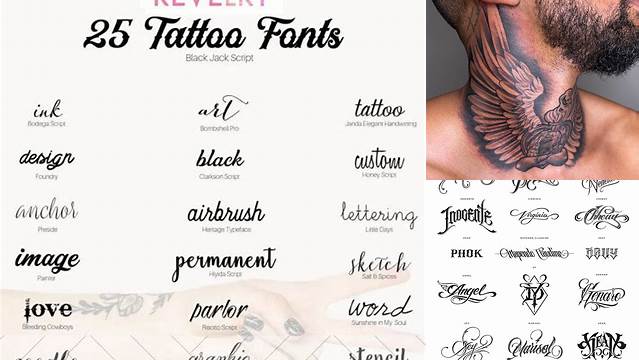
Fonts Tattoo Name: Your Ultimate Guide To Perfect Ink
Hey guys! Getting a name tattooed is a big decision, and choosing the right font is just as important as choosing the name itself. The font you select will heavily influence the overall aesthetic and vibe of your tattoo, so let's dive into everything you need to know about fonts tattoo name and how to pick the perfect one for your skin.
1. Understanding Font Styles for Name Tattoos
When thinking about fonts tattoo name, it's crucial to first get a grip on the different styles available. Each style carries its own unique feel and will affect how the name is perceived. Are you going for something classic and timeless, or modern and edgy? Let's explore some popular categories. Think about the message you want to convey. Is it elegance, strength, or something else entirely? The right font can be a powerful way to visually communicate the essence of the name and the sentiment behind it. Before diving into the specifics, take some time to truly reflect on the meaning you want your tattoo to hold. Considering the overall aesthetic you're aiming for will help you narrow down the vast sea of font possibilities and land on something truly special and meaningful for your personal story. Think of your skin as a canvas, and the font as the brushstroke that brings your vision to life. So, let's get started on this exciting journey of exploration!
2. Cursive Fonts for Name Tattoos
Cursive fonts are a super popular choice when it comes to fonts tattoo name because they offer a flowing, elegant look. Think about how handwritten script has a personal touch – that's the kind of vibe cursive can give your tattoo. They're often associated with femininity and grace, but honestly, a well-chosen cursive font can look amazing on anyone. Imagine a delicate cursive font adorning a wrist or collarbone, adding a touch of understated beauty. Or perhaps a bolder, more dramatic cursive sprawling across the back, making a statement. The beauty of cursive lies in its versatility. However, there are a few things to keep in mind. Intricate cursive fonts with lots of swirls and embellishments can sometimes get a bit muddy or illegible, especially if the tattoo is small or placed in an area where the skin stretches a lot. It's crucial to work with a skilled tattoo artist who can execute the design flawlessly. They can help you choose a cursive font that will not only look beautiful but also stand the test of time, maintaining its clarity and elegance for years to come. So, explore the world of cursive, and let its graceful curves and flowing lines inspire your perfect name tattoo.
3. Gothic Fonts for Name Tattoos
For a bolder, more dramatic statement, Gothic fonts tattoo name are the way to go. These fonts have a serious edge and often evoke a sense of mystery or strength. If you're looking to make a statement, a Gothic font can be incredibly powerful. Think of the strong, angular lines and the way these fonts command attention. They're not for the faint of heart, but when done right, a Gothic name tattoo can be absolutely stunning. Imagine a name rendered in a bold Gothic script across the chest or back, a powerful declaration of identity. Or perhaps a smaller Gothic font on the forearm, a subtle nod to a more rebellious spirit. The beauty of Gothic fonts lies in their ability to convey a sense of strength and permanence. However, it's essential to choose the right Gothic font for your design. Some Gothic fonts can be quite intricate, so it's crucial to ensure the design remains legible, especially for smaller tattoos. Work closely with your tattoo artist to select a font that not only fits your aesthetic but also translates well onto the skin. Consider the spacing between the letters and the overall size of the tattoo to ensure the design remains clear and impactful for years to come.
4. Block Letter Fonts for Name Tattoos
Block letter fonts tattoo name offer a clean, modern aesthetic. They're straightforward, easy to read, and can be a great choice if you want something simple and impactful. Think about the strength and clarity of block letters – they make a statement without being overly fussy. This style is particularly well-suited for those who appreciate minimalism and a no-nonsense approach. Imagine a name rendered in bold block letters across the chest, a powerful declaration of self. Or perhaps a smaller, more delicate block letter font on the wrist, a subtle yet impactful reminder. The beauty of block letter fonts lies in their versatility. They can be adapted to suit a wide range of styles and personalities. Whether you prefer a classic, sans-serif block letter or a more stylized, modern interpretation, there's a block letter font out there for you. However, it's essential to consider the placement of your tattoo when choosing a block letter font. The clean lines and sharp angles of block letters can sometimes look harsh if not properly placed. Work with your tattoo artist to find the perfect placement and size for your tattoo to ensure it complements your body and looks its best for years to come.
5. Script Fonts for Name Tattoos
Script fonts tattoo name are similar to cursive, but they often have a more playful or whimsical feel. Think of the flowing lines and elegant curves of calligraphy – that's the essence of script fonts. They can add a touch of personality and flair to your tattoo, making it truly unique. Imagine a name rendered in a delicate script font, swirling gracefully across the skin. Or perhaps a bolder script font, making a statement with its unique curves and flourishes. The beauty of script fonts lies in their ability to express individuality and creativity. However, it's essential to choose a script font that is both beautiful and legible. Some script fonts can be quite intricate, so it's crucial to ensure the design remains clear and easy to read, especially for smaller tattoos. Work closely with your tattoo artist to select a font that not only reflects your personality but also translates well onto the skin. Consider the spacing between the letters and the overall size of the tattoo to ensure the design remains clear and impactful for years to come. With the right script font, your name tattoo can become a true work of art, a unique expression of your individuality.
6. Choosing the Right Font Size for Your Name Tattoo
Size matters, guys! When it comes to fonts tattoo name, the size of the font is super important for both aesthetics and readability. A tiny, intricate font might look cute on paper, but it could turn into a blurry mess on your skin over time. On the flip side, a huge, bold font might overwhelm the area you're tattooing. Think about the placement of your tattoo and the amount of space you have to work with. A small, delicate font might be perfect for a wrist tattoo, while a larger font would be better suited for a back piece. It's also crucial to consider the long-term visibility of your tattoo. As your skin ages, the ink can spread slightly, blurring the lines of your tattoo. Choosing a font size that is large enough to remain legible over time is essential. Your tattoo artist can offer valuable guidance on this, helping you select a font size that will look great now and for years to come. Remember, a well-chosen font size is the key to a beautiful and enduring name tattoo.
7. Considering Tattoo Placement with Font Choice
Where you put your tattoo can totally influence the best fonts tattoo name to use. Think about it – a delicate cursive font might look amazing on your wrist, but it might get lost on a broader area like your back. A bold, Gothic font could be striking on your chest, but maybe a bit too intense for your finger. The shape and contours of your body play a big role in how a tattoo looks. A font that flows well with the curves of your body will look much more natural and aesthetically pleasing. Certain areas of the body, like the ribs or spine, can be more sensitive to tattooing, so you might want to opt for a simpler font that requires less time under the needle. Your tattoo artist can be a great resource for advice on placement. They have the experience to guide you toward the best font choices for specific areas of the body, ensuring your tattoo looks balanced and beautiful.
8. Font Legibility and Name Tattoos
Okay, so this is a big one: legibility. Your fonts tattoo name needs to be readable, right? There's no point in getting a tattoo if people can't actually make out what it says! Super fancy, intricate fonts might look cool, but if the letters all blend together, it defeats the purpose. Think about the spacing between the letters. Are they close enough together that they look cohesive, but far enough apart that they don't run into each other? The thickness of the lines also matters. Thin, delicate lines can fade over time, making the tattoo harder to read. Bold, clear lines will stand the test of time much better. Before you commit to a font, ask your tattoo artist to do a test print. This will give you a better idea of how the font will look on your skin, ensuring it remains legible for years to come. After all, your name tattoo is a statement, and you want to make sure it's heard loud and clear!
9. Matching Font to Your Personal Style
Your fonts tattoo name should be a reflection of you. What's your personal style like? Are you classic and elegant? Edgy and bold? Playful and whimsical? Your tattoo font should match your vibe. If you're someone who loves classic looks, a traditional font like Times New Roman or Garamond might be a great choice. If you're more into a modern aesthetic, a sans-serif font like Helvetica or Arial could be perfect. And if you're feeling a little more adventurous, you could explore script fonts or even hand-lettered styles. Think about the other tattoos you have (or might get in the future). Do you want your name tattoo to complement your existing ink, or do you want it to stand out on its own? The key is to choose a font that you genuinely love and that you feel represents who you are. After all, your tattoo is a permanent expression of yourself, so you want to make sure it's authentic.
10. Popular Fonts for Name Tattoos: A Showcase
Let's take a look at some seriously popular fonts tattoo name choices! This can give you some solid inspiration and help you narrow down your options. Cursive fonts are always a hit for their elegance and flow. Think about fonts like Brush Script or Pacifico – they've got that classic, handwritten feel. Gothic fonts are a go-to for a bolder statement. Options like Old English or Blackletter give off a strong, dramatic vibe. If you're after something clean and modern, sans-serif fonts like Helvetica or Futura are fantastic choices. They're simple, readable, and super versatile. Script fonts can add a touch of whimsy and personality. Check out fonts like Lobster or Great Vibes for some fun, flowing options. Don't forget about serif fonts like Times New Roman or Georgia. They're classic and timeless, perfect for a traditional look. This is just a starting point, though! There are thousands of fonts out there, so don't be afraid to explore and find something truly unique that speaks to you.
11. The Timeless Appeal of Traditional Tattoo Fonts
There's a reason why some fonts tattoo name have been around for ages – they're classics for a reason! Traditional tattoo fonts have a timeless appeal that just never goes out of style. Think about the bold lines, the clean shapes, and the overall simplicity. These fonts are designed to stand the test of time, both in terms of aesthetics and legibility. Fonts like Old English and Gothic have a rich history in tattooing, evoking a sense of tradition and heritage. They're often associated with strength, resilience, and a connection to the past. Traditional fonts are also incredibly versatile. They can be adapted to suit a wide range of styles and placements, making them a reliable choice for any tattoo design. If you're looking for a font that will look just as good in 20 years as it does today, a traditional tattoo font is definitely worth considering. It's a safe bet for a reason, and you'll love its enduring style for a lifetime.
12. Modern and Minimalist Font Choices
If you're all about clean lines and a less-is-more aesthetic, modern and minimalist fonts tattoo name are your jam. These fonts ditch the frills and focus on simplicity, legibility, and a contemporary vibe. Think about sans-serif fonts like Helvetica, Arial, or Futura. They're sleek, straightforward, and incredibly versatile. A minimalist font can be a great choice if you want your name tattoo to be understated yet impactful. It's a style that works well in a variety of placements, from the wrist to the collarbone to the ankle. Modern fonts also have a timeless quality, making them a solid investment for the long haul. They don't follow fleeting trends, so you can be sure your tattoo will look stylish for years to come. If you're drawn to clean design and a minimalist aesthetic, explore the world of modern fonts – you might just find the perfect fit for your name tattoo.
13. Calligraphy-Inspired Name Tattoo Fonts
Want to add a touch of elegance and artistry to your fonts tattoo name? Calligraphy-inspired fonts are the way to go! These fonts mimic the beauty and flow of traditional calligraphy, creating a tattoo that's both personal and visually stunning. Think about the delicate strokes, the graceful curves, and the overall sense of artistry. Calligraphy fonts can range from classic and formal to more modern and whimsical, giving you plenty of options to choose from. Imagine a name tattooed in a flowing script across your back, or a delicate calligraphy font adorning your wrist. It's a style that exudes sophistication and personality. When choosing a calligraphy font, it's important to consider legibility. Some ornate calligraphy fonts can be difficult to read, so opt for a style that strikes a balance between beauty and clarity. A well-chosen calligraphy font can transform your name tattoo into a true work of art, a lasting expression of your unique style.
14. Hand-Lettered and Unique Font Styles
If you're after a fonts tattoo name that's truly one-of-a-kind, consider hand-lettered or unique font styles. These options offer a personal touch that you just can't get with a standard font. Think about the charm of a font that's been custom-designed just for you. A hand-lettered tattoo can capture your personality and style in a way that no other font can. You could work with your tattoo artist to create a font that's based on your own handwriting, or you could explore unique fonts that you won't find anywhere else. The possibilities are endless! A unique font style can make your name tattoo stand out from the crowd, making it a true statement piece. However, it's essential to choose a hand-lettered or unique font that's also legible. Make sure the letters are clear and well-defined, so your tattoo remains readable over time. With a little creativity and collaboration, you can create a name tattoo that's as unique as you are.
15. Font Pairings: Combining Different Styles
Feeling adventurous? You can totally level up your fonts tattoo name by combining different font styles! Font pairings can create a visually interesting and dynamic tattoo. Think about pairing a bold, block letter font with a delicate script font, or a classic serif font with a modern sans-serif font. The key is to find fonts that complement each other and create a harmonious balance. When choosing font pairings, consider the overall message you want to convey. Do you want a tattoo that's both strong and elegant? Or perhaps something that's both classic and modern? The right font pairing can help you achieve your desired aesthetic. It's also important to consider legibility when combining fonts. Make sure both fonts are clear and readable, even when placed next to each other. Experiment with different font combinations and ask your tattoo artist for their advice. They can help you create a font pairing that's both visually appealing and timeless.
16. The Impact of Line Weight in Font Choice
The line weight of your fonts tattoo name makes a huge difference in the overall look and feel. Think about it – thin lines create a delicate and understated effect, while thick lines make a bolder statement. The line weight you choose can significantly impact the legibility and longevity of your tattoo. Thin lines can fade or blur over time, so they're best suited for smaller tattoos or areas of the body where there's less friction. Thick lines, on the other hand, are more durable and will hold up better over time. They're a great choice for larger tattoos or areas that are prone to rubbing or stretching. Consider the placement of your tattoo when choosing a line weight. A thin, delicate line weight might look elegant on your wrist, but it could get lost on a broader area like your back. A thicker line weight will stand out more and make a bolder statement. Talk to your tattoo artist about the best line weight for your chosen font and placement. They can help you make a decision that will ensure your tattoo looks its best for years to come.
17. Negative Space and Font Design
Don't underestimate the power of negative space in fonts tattoo name! Negative space refers to the empty areas around and within the letters. It plays a crucial role in the legibility and overall aesthetic of your tattoo. Think about how negative space helps to define the shape of the letters and create a sense of balance. Too little negative space can make a tattoo look cluttered and difficult to read, while too much negative space can make it look sparse and disconnected. The right amount of negative space will enhance the clarity and impact of your name tattoo. Consider the complexity of your chosen font when thinking about negative space. Intricate fonts with lots of swirls and embellishments require more negative space to prevent the tattoo from looking too busy. Simpler fonts can often handle less negative space without losing legibility. Work with your tattoo artist to ensure there's enough negative space in your design. They can help you create a tattoo that's both beautiful and easy to read, making the most of this often-overlooked design element.
18. The Use of Serifs and Sans-Serifs
Serifs and sans-serifs are two main categories of fonts tattoo name, and understanding the difference can help you choose the perfect style for your ink. Serifs are the small decorative strokes that finish off the ends of letters, while sans-serifs are fonts without these strokes. Think about the classic look of serif fonts like Times New Roman or Georgia. They've got a traditional and elegant feel, often associated with books and formal documents. Sans-serif fonts, like Helvetica or Arial, have a cleaner, more modern aesthetic. They're simple, straightforward, and often used in digital design. When choosing between serifs and sans-serifs for your name tattoo, consider your personal style and the overall look you're going for. Serif fonts can add a touch of sophistication, while sans-serif fonts offer a more minimalist vibe. It's also important to think about legibility. Serif fonts can sometimes be more difficult to read in small sizes, so sans-serifs are often a better choice for smaller tattoos. Talk to your tattoo artist about the pros and cons of each style, and they can help you make the right decision for your name tattoo.
19. Font Kerning and Letter Spacing
Kerning and letter spacing might sound like technical jargon, but they're super important when it comes to fonts tattoo name! Kerning refers to the space between individual letters, while letter spacing refers to the overall spacing between all the letters in a word. Think about how kerning and letter spacing affect the legibility and visual appeal of your tattoo. Poor kerning can make a tattoo look awkward and unbalanced, while inconsistent letter spacing can make it difficult to read. The goal is to achieve even and consistent spacing between all the letters, creating a tattoo that's both visually pleasing and easy to decipher. Some fonts have built-in kerning and letter spacing that looks great right out of the box, while others may require some tweaking. Your tattoo artist can adjust the kerning and letter spacing to ensure your name tattoo looks its best. They'll consider the size and placement of your tattoo, as well as the overall style of the font, to create a design that's perfectly balanced and legible.
20. Font Contrast and Visual Hierarchy
Font contrast is your secret weapon for creating a visually striking and readable fonts tattoo name. It's all about playing with different font weights, styles, and sizes to create a sense of visual hierarchy. Think about how you can use bold fonts to emphasize certain words or letters, while using lighter fonts for the rest of the tattoo. You could also combine different font styles, such as a bold Gothic font with a delicate script font, to create a dynamic contrast. Font contrast can help to draw the eye to the most important elements of your tattoo, making it more impactful and memorable. It can also improve the legibility of your tattoo, especially if you're using a more intricate font. Experiment with different font combinations and weights to see what creates the most visually appealing contrast. Your tattoo artist can offer valuable guidance on this, helping you create a tattoo that's both beautiful and easy to read.
21. Font Distortion and Creative Effects
Feeling a little daring? You can add some serious personality to your fonts tattoo name by playing with font distortion and creative effects. Think about stretching, skewing, or warping your chosen font to create a unique and eye-catching design. You could also add shadows, outlines, or other effects to give your tattoo a three-dimensional look. Font distortion can be a great way to make your name tattoo stand out from the crowd. It allows you to express your creativity and create a design that's truly one-of-a-kind. However, it's important to use font distortion judiciously. Too much distortion can make your tattoo difficult to read, so it's crucial to strike a balance between creativity and legibility. Work closely with your tattoo artist to experiment with different distortion techniques and find a style that suits your personal taste. They can help you create a name tattoo that's both artistic and readable, making a bold statement without sacrificing clarity.
22. Matching Font to Tattoo Theme or Style
Your fonts tattoo name should totally complement the overall theme or style of your tattoo. Think about it – a delicate script font might look amazing with a floral design, while a bold Gothic font would be perfect for a more edgy or traditional tattoo. Matching your font to the tattoo theme creates a cohesive and harmonious look. It shows that you've put thought into the overall design and that every element works together to tell a story. If you're getting a name tattoo as part of a larger piece, consider the other elements of the design. What are the dominant colors, shapes, and styles? Choose a font that complements these elements and enhances the overall composition. Your tattoo artist can offer valuable guidance on matching fonts to tattoo themes. They have the experience to help you choose a font that will blend seamlessly with your existing ink or create a cohesive look for a new tattoo. A well-matched font can elevate your tattoo from good to great, making it a true work of art.
23. Font Inspiration from Different Cultures
Looking for something truly unique? Draw inspiration from different cultures when choosing your fonts tattoo name! Think about the beautiful calligraphy of Arabic script, the elegant strokes of Japanese kanji, or the bold lines of traditional Polynesian tribal fonts. Exploring fonts from different cultures can open up a world of possibilities and help you create a tattoo that's both meaningful and visually stunning. Each culture has its own unique lettering styles and traditions, so you're sure to find something that resonates with you. However, it's crucial to approach cultural fonts with respect and sensitivity. Do your research and make sure you understand the meaning and significance of the font you choose. It's also a good idea to consult with someone who is knowledgeable about the culture to ensure you're using the font appropriately. With careful consideration and respect, you can create a name tattoo that's not only beautiful but also honors a rich cultural heritage.
24. Using Online Font Generators and Tools
Okay, so you've got tons of font ideas swirling around in your head, but how do you actually see what they'll look like as a fonts tattoo name? That's where online font generators and tools come in super handy! These websites let you type in your name and preview it in a huge variety of fonts. Think of it as a virtual try-on session for your tattoo. You can experiment with different styles, sizes, and colors to get a feel for what looks best. Some font generators even let you upload a photo of your body and see how the font would look in a specific placement. This is a great way to visualize your tattoo before you commit to it. Keep in mind that online font generators are just a starting point. The final result may vary slightly depending on your skin type, the ink used, and the skill of your tattoo artist. However, they're a fantastic tool for exploring different options and narrowing down your choices.
25. Working with Your Tattoo Artist on Font Selection
This is huge, guys: collaborating with your tattoo artist on fonts tattoo name selection is key to getting a tattoo you'll absolutely love. Think of your artist as your font guru – they've seen it all and know what works best for different styles, placements, and skin types. They can offer invaluable advice on choosing a font that will not only look amazing but also stand the test of time. Don't be afraid to bring your ideas and inspiration to the table. Show your artist examples of fonts you like, and explain the overall look you're going for. Your artist can then help you narrow down your choices and suggest fonts that you might not have considered. They can also advise you on font size, line weight, and placement, ensuring your tattoo looks balanced and legible. Remember, your tattoo artist is your partner in this process. By working together, you can create a name tattoo that's a true reflection of your style and personality.
26. Font Test Prints and Stencils: A Must-Do
Before the needle even touches your skin, font test prints and stencils are a must for your fonts tattoo name. Think of it as a dress rehearsal for your tattoo. A test print allows you to see the font in the exact size and style you've chosen, giving you a realistic preview of the final result. You can check for legibility, kerning issues, and overall balance. A stencil is a template that your tattoo artist will use to transfer the design onto your skin. It's crucial to make sure the stencil is accurate and that the font looks exactly as you want it to. If you spot any issues with the test print or stencil, now's the time to address them. You can make adjustments to the font size, spacing, or placement until you're completely happy with the design. Test prints and stencils are your safety net, ensuring you'll end up with a name tattoo that you'll love for years to come.
27. Long-Term Considerations for Font Choice
Okay, let's talk long game: When choosing your fonts tattoo name, it's crucial to think about how it will look years down the road. Think about the aging process and how it can affect your skin and your tattoo. Fine lines can fade or blur over time, so delicate fonts might not hold up as well as bolder styles. Ink can also spread slightly, which can make intricate fonts look muddy or illegible. Placement is another key consideration. Areas of the body that are prone to stretching or rubbing, such as the ribs or the fingers, might not be the best choice for small, detailed fonts. Opt for a font that's simple, clear, and bold enough to stand the test of time. Your tattoo artist can offer valuable advice on long-term considerations, helping you choose a font that will still look great in 10, 20, or even 30 years. A well-chosen font is an investment in your future tattoo happiness.
28. Touch-Ups and Font Maintenance
Even the most perfectly executed fonts tattoo name might need a little love over time. Think of touch-ups as routine maintenance for your ink, keeping it looking fresh and vibrant. Sun exposure, friction, and the natural aging process can all cause your tattoo to fade or blur slightly. A touch-up can restore the original sharpness and clarity of your font, ensuring it remains legible and beautiful. How often you'll need a touch-up depends on several factors, including your skin type, the placement of your tattoo, and how well you care for it. It's generally recommended to get a touch-up every 5-10 years, but you might need one sooner if you notice significant fading or blurring. Proper aftercare is essential for maintaining your tattoo's font. Protect it from the sun, moisturize regularly, and avoid harsh chemicals or abrasive materials. With a little care and maintenance, your name tattoo will continue to make a statement for years to come.
29. Font Trends and Staying Timeless
While it's tempting to jump on the latest fonts tattoo name trends, it's super important to think about the long-term appeal of your ink. Think about how tattoo trends come and go, and a font that's all the rage today might look dated in a few years. The goal is to choose a font that's both stylish and timeless, a font that you'll love for years to come. Classic fonts, like traditional script or Gothic styles, have a timeless quality that never goes out of style. They're a safe bet if you want a tattoo that will look good no matter what the current trends are. If you're drawn to a more trendy font, consider using it sparingly or combining it with a more classic style. This can give you a bit of both worlds – a touch of current style with a foundation of timeless appeal. Your tattoo artist can offer valuable advice on choosing a font that balances trendiness with longevity, helping you create a name tattoo that's both fashionable and enduring.
30. Final Thoughts: Your Perfect Font Awaits
Okay, guys, we've covered a ton about fonts tattoo name, from different styles to placement considerations to long-term maintenance. The key takeaway is that choosing the right font is a deeply personal decision. Think about your style, your personality, and the message you want to convey. Explore different options, experiment with font pairings, and most importantly, collaborate with your tattoo artist. Your perfect font is out there, waiting to be discovered. With a little research, creativity, and expert guidance, you can create a name tattoo that's not only beautiful but also a true reflection of you. So go ahead, start exploring, and get ready to rock that ink!